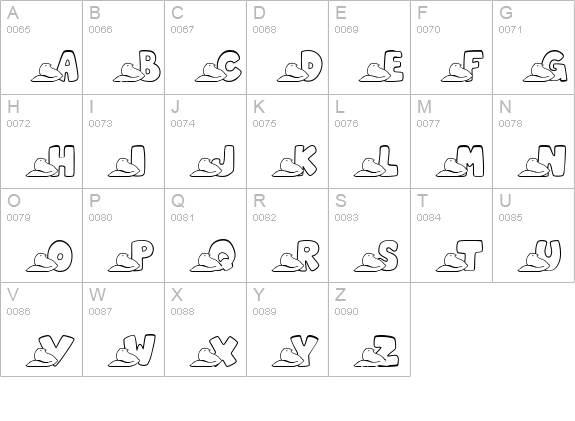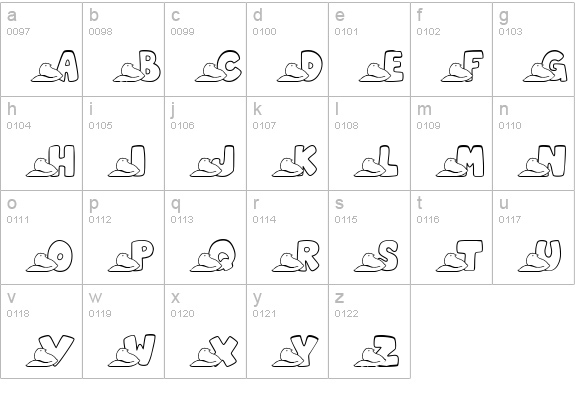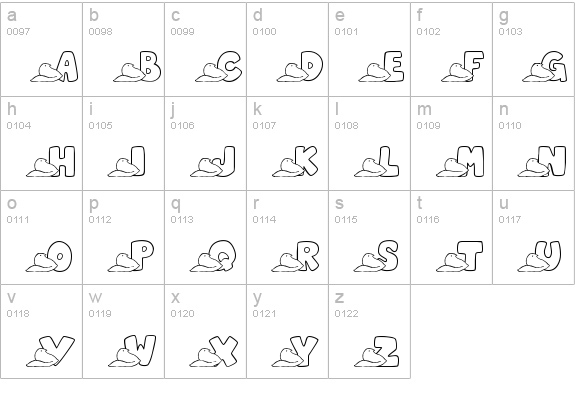
Introducing the JLR Easter Peeps font, a delightful and whimsical typeface that captures the essence of Easter joy and sweetness. This font is perfect for any project that requires a touch of playfulness and a sprinkle of holiday spirit. Designed with meticulous attention to detail, JLR Easter Peeps font features charming letters that resemble the iconic marshmallow treats we all know and love. Each character is meticulously crafted to emulate the soft, fluffy texture and adorable shape of these sugary confections. With its bold and lively appearance, JLR Easter Peeps font is versatile and can be used for a wide range of creative projects. Whether you're designing Easter-themed invitations, greeting cards, posters, or even crafting unique social media graphics, this font will add a burst of festive cheer to your designs. The best part? JLR Easter Peeps font is available for free! Yes, you read that right. You can download this delightful typeface at FontsMarket.com without spending a dime. It's a wonderful opportunity to enhance your Easter-themed designs without breaking the bank. Don't miss out on this free treasure! Download the JLR Easter Peeps font today and infuse your projects with the joy and whimsy of the Easter season. Let your creativity run wild and watch as your designs come to life with the sugary sweetness of this delightful font.